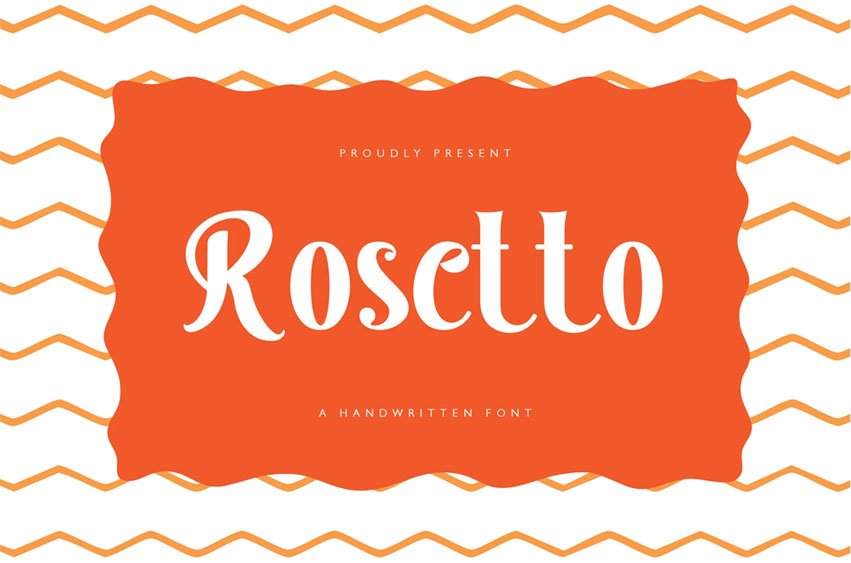
Rosetto Font is an elegant script font that exudes sophistication and timeless beauty.
With its flowing curves and graceful strokes, it evokes a sense of refinement, making it perfect for luxury branding, wedding invitations, or any project that calls for an air of class and charm.